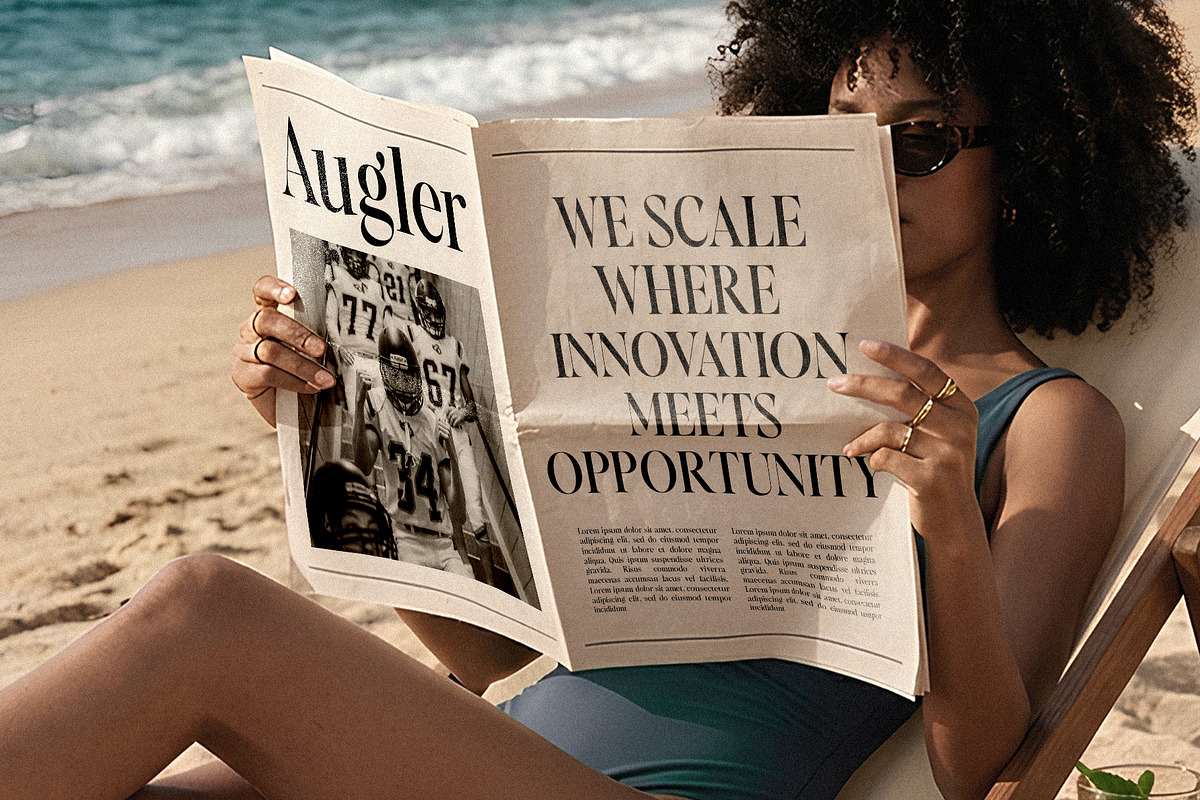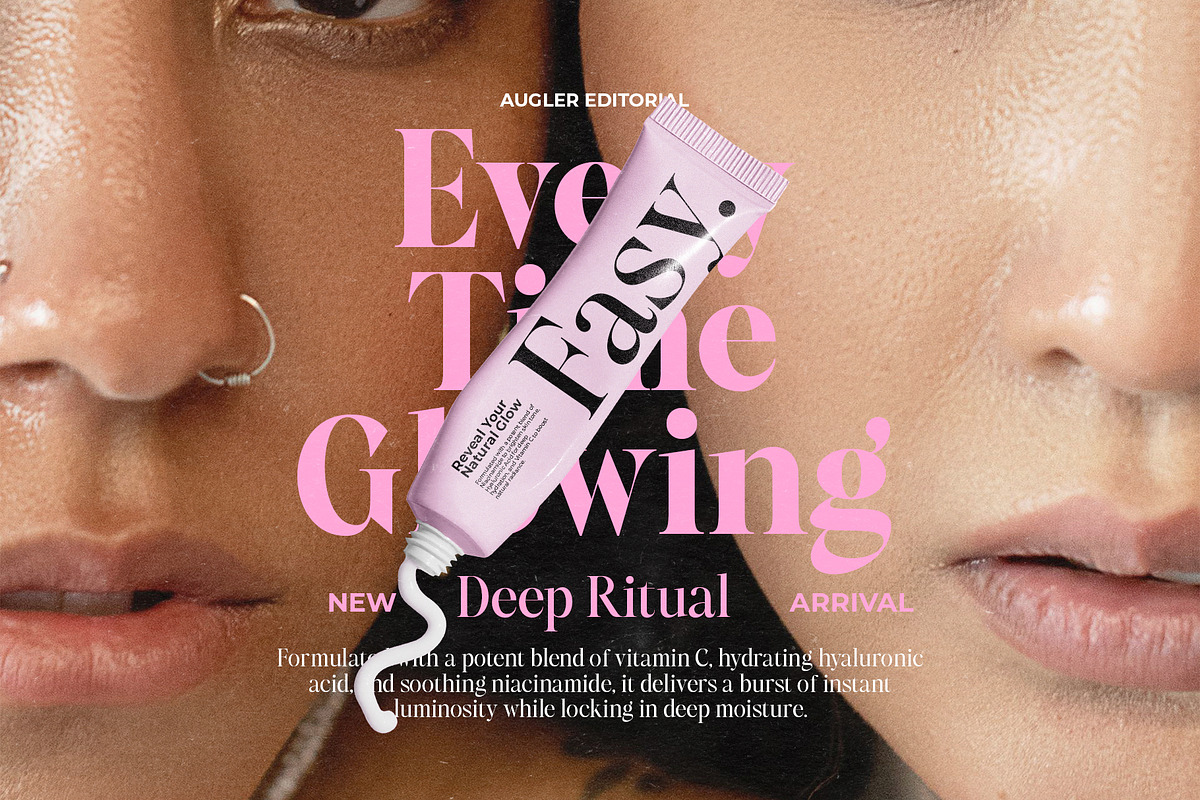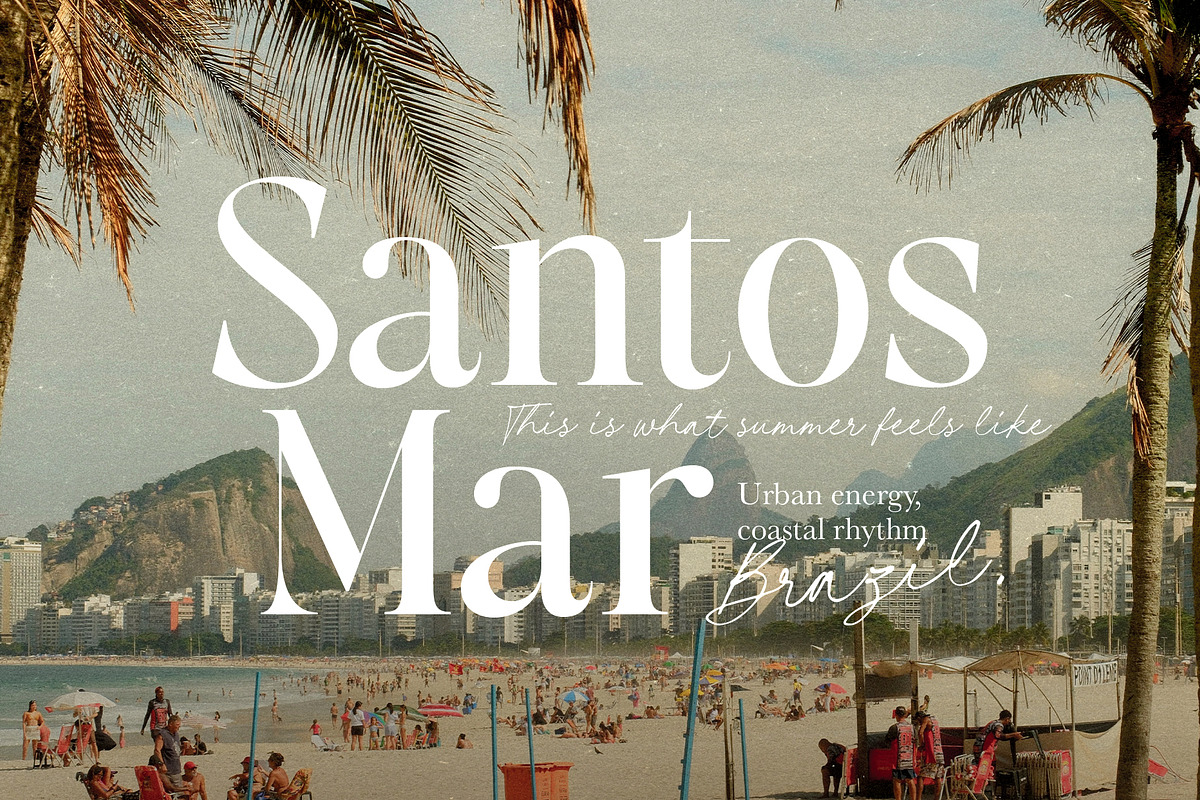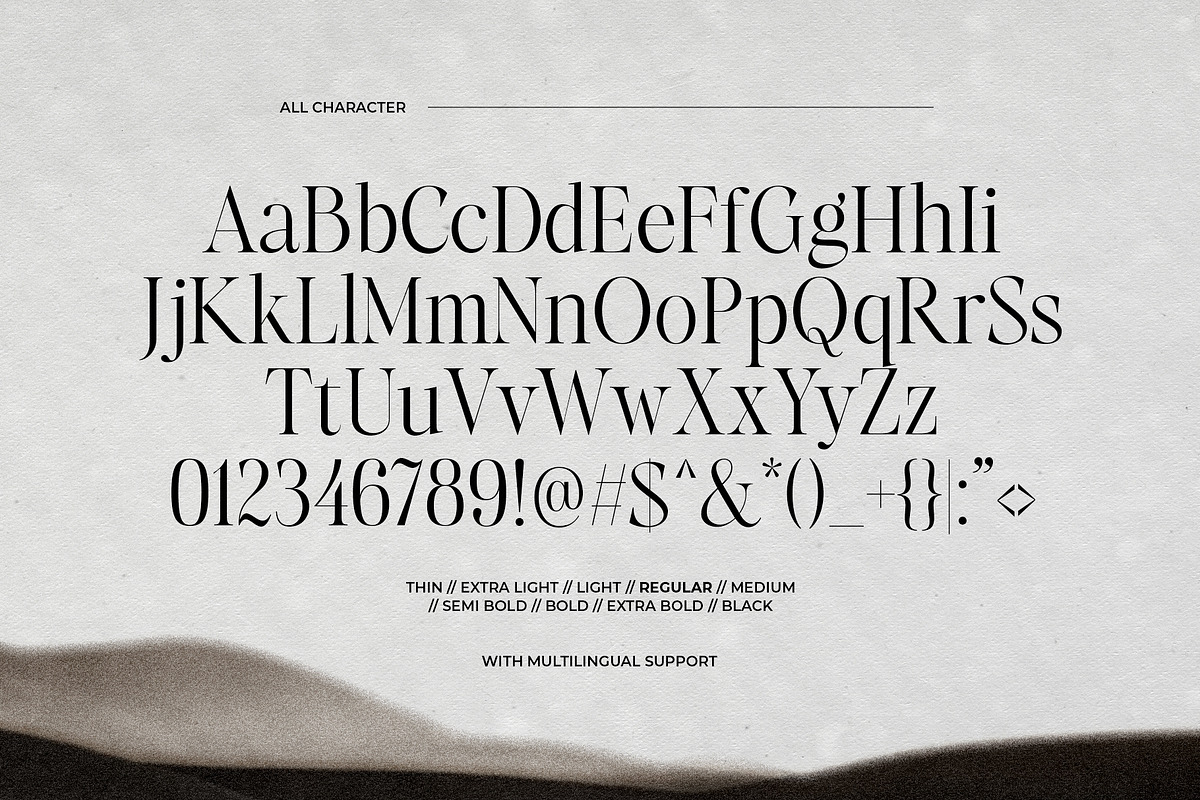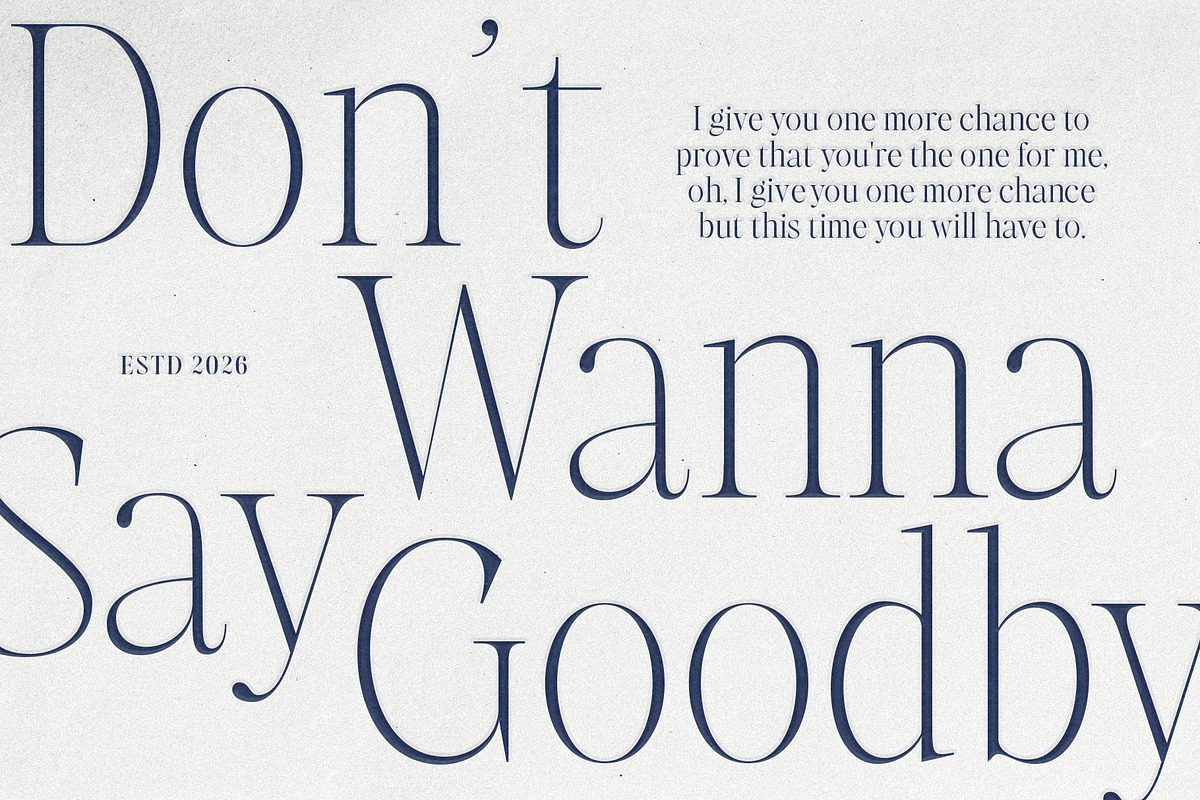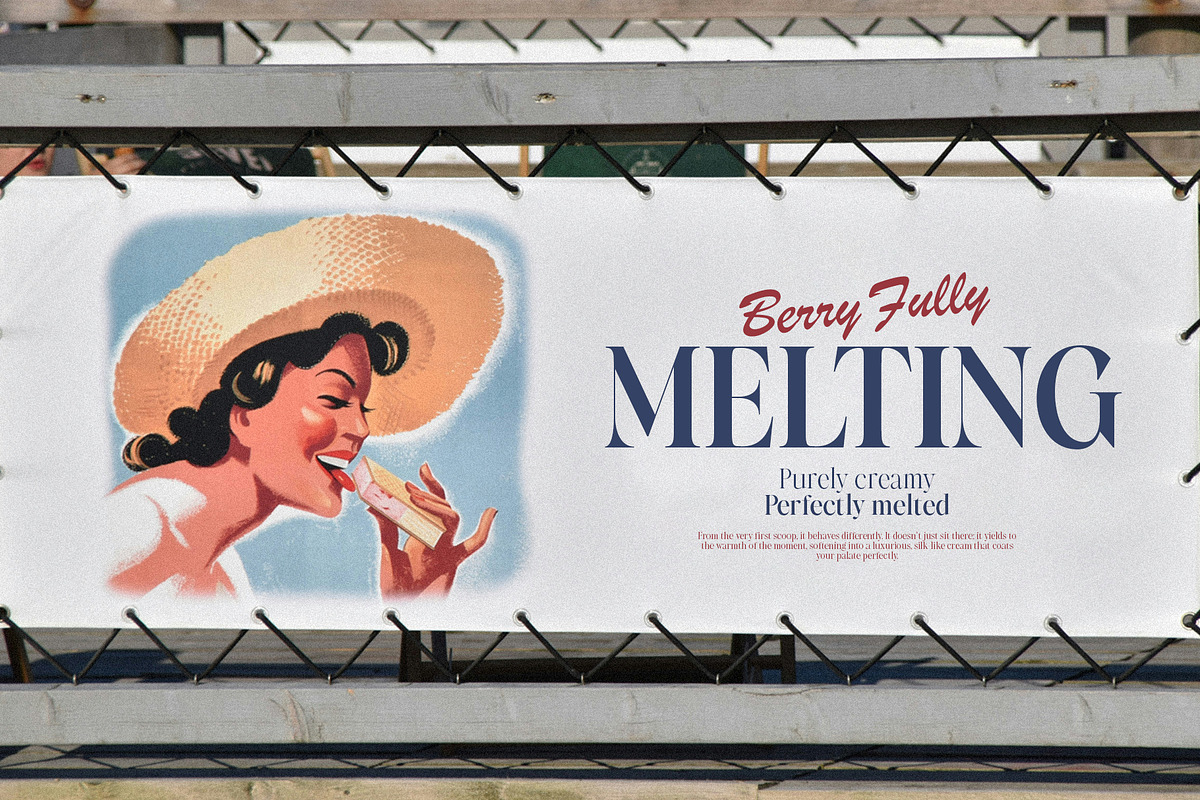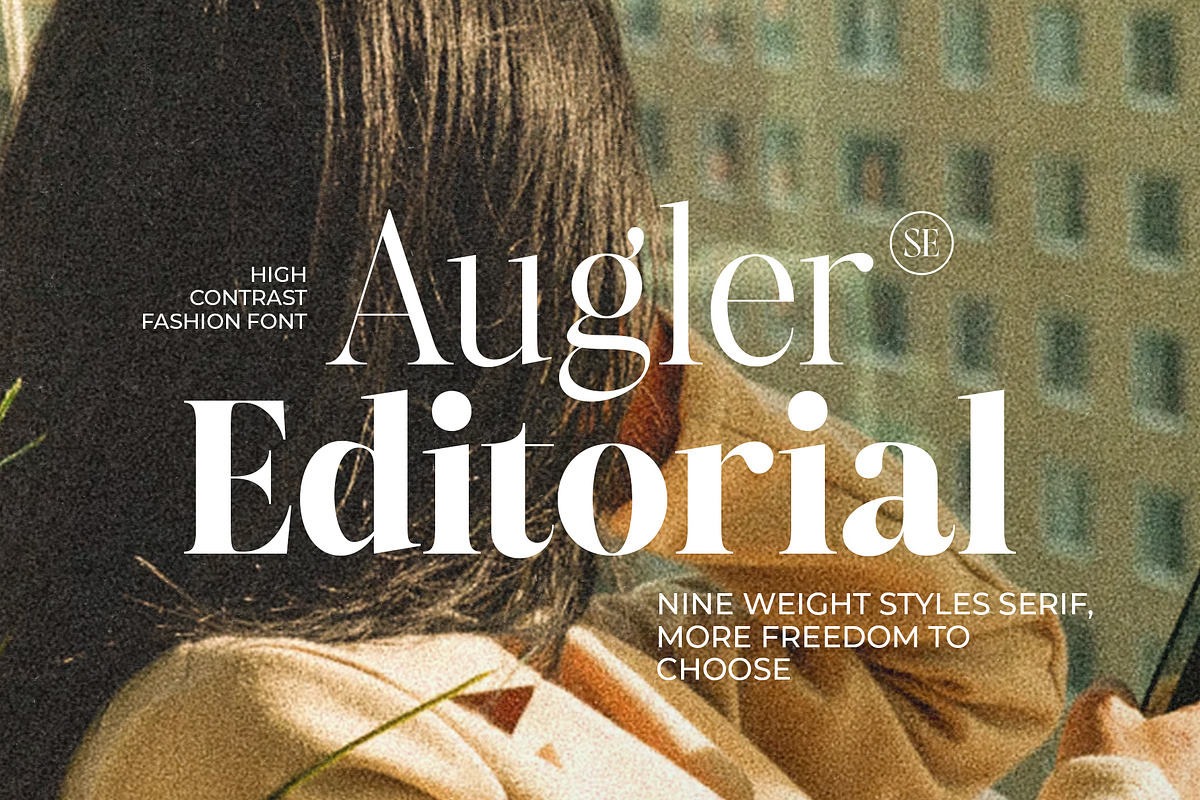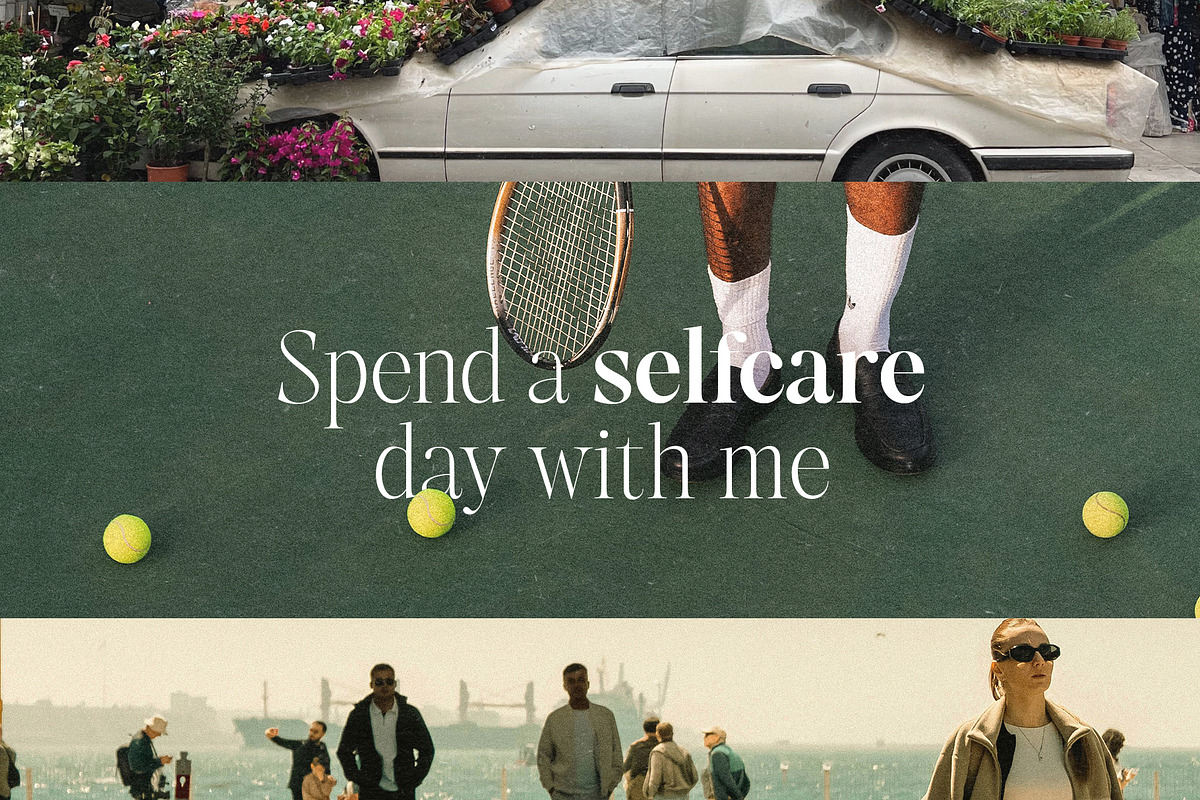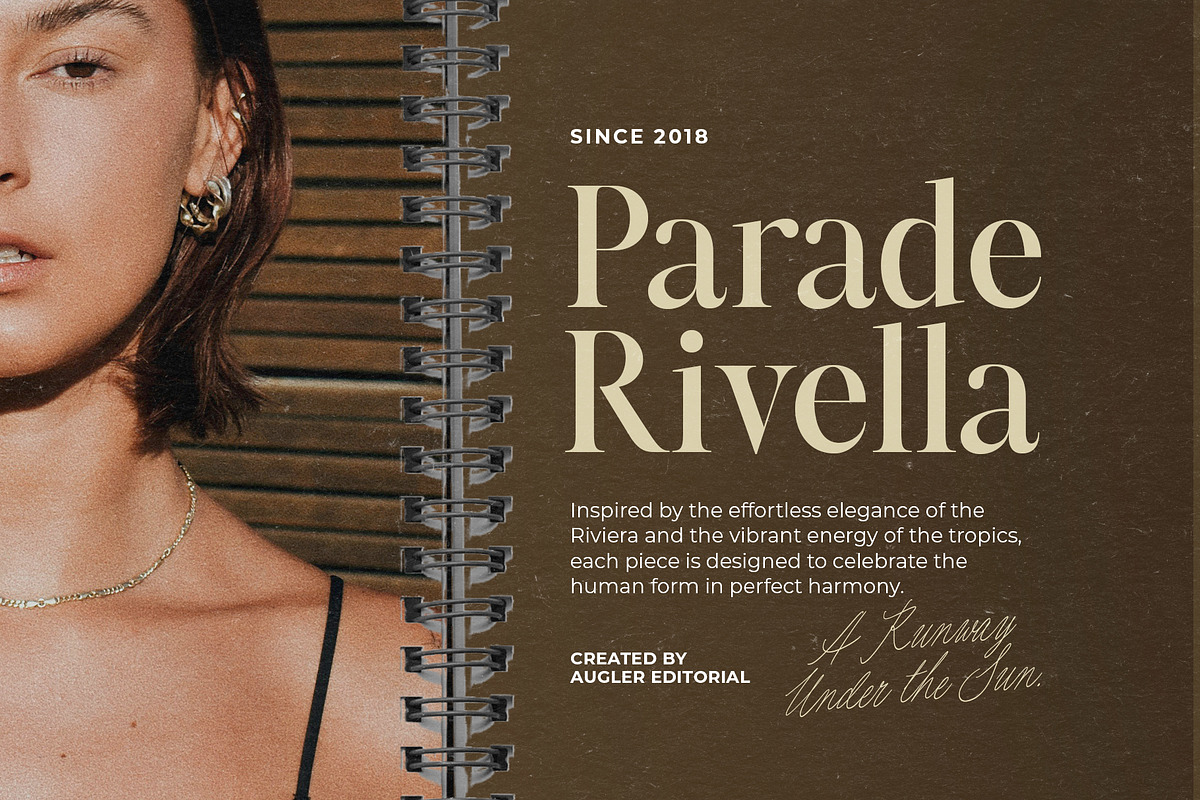
Augler - Editorial Serif Family
Augler is a simple editorial serif font family with high contrast looks. Comes with 9 weight styles from thin to black that you can choose to fit your designs or using two or more in one project to make it looks stand out. You can use this font for so many purposes, such as editorial magazine, quote, branding, or using this font as complimentary with script or sans font. This font also support multi language.